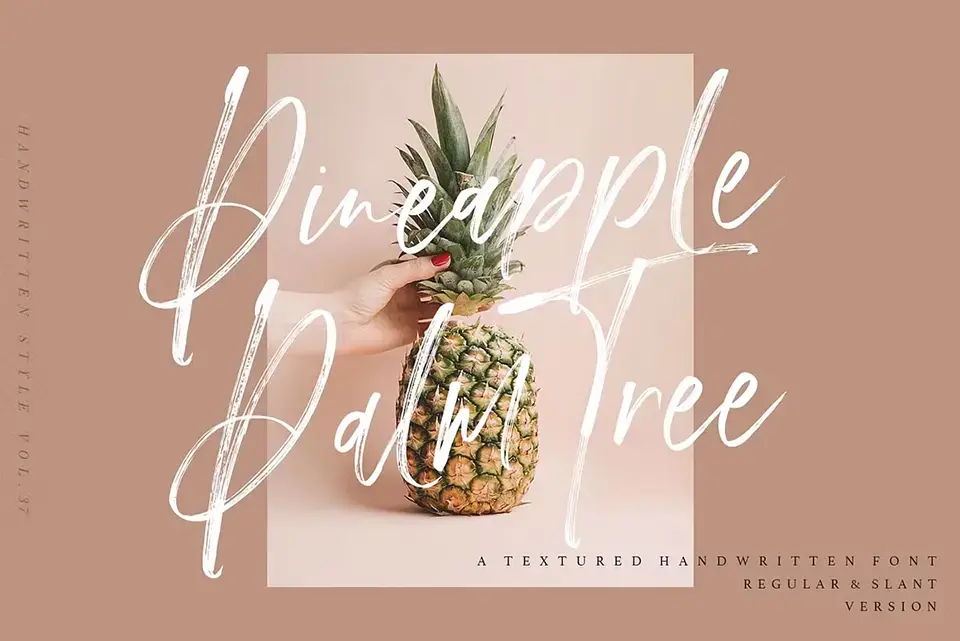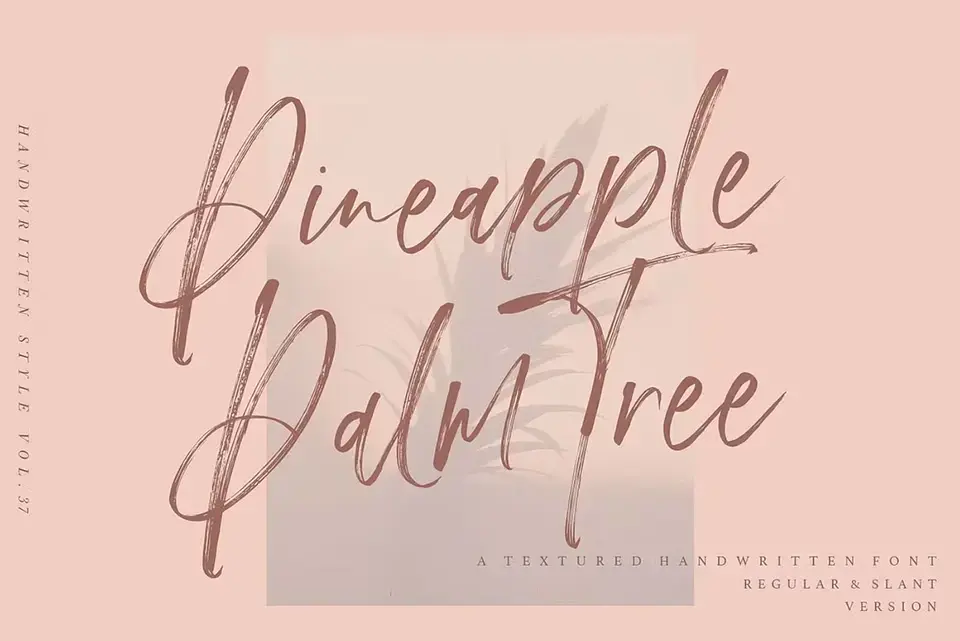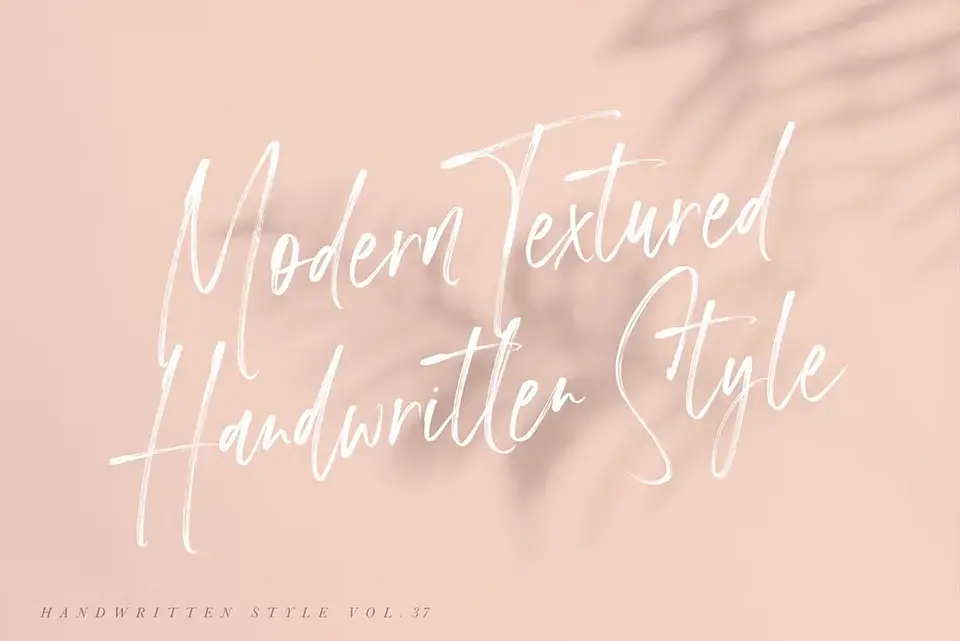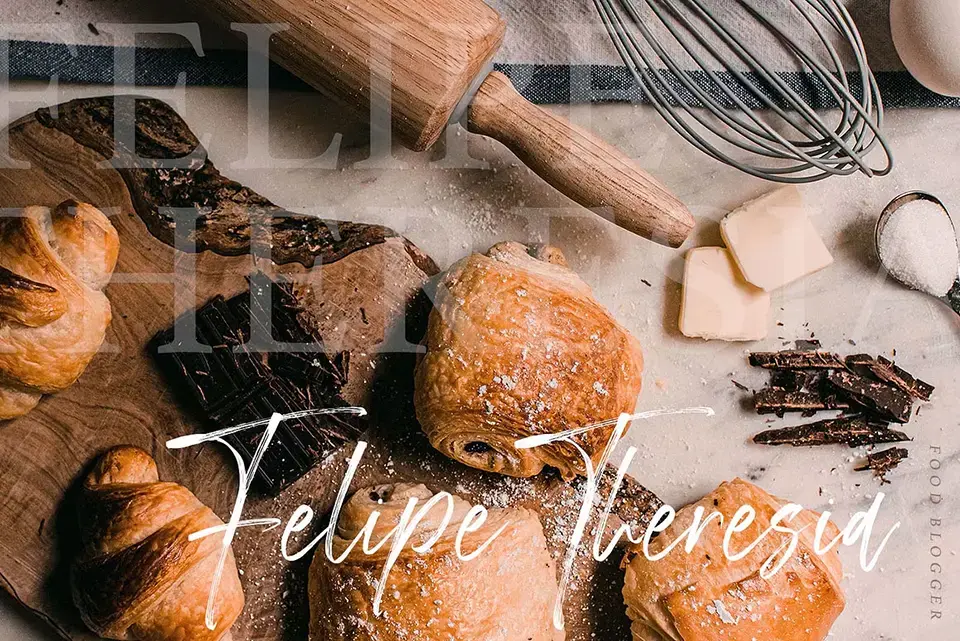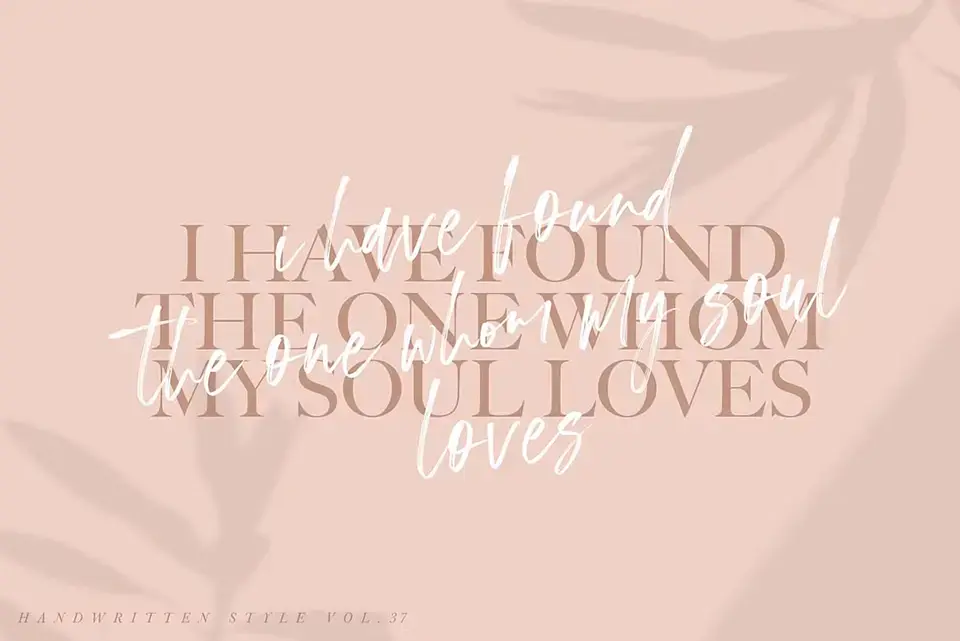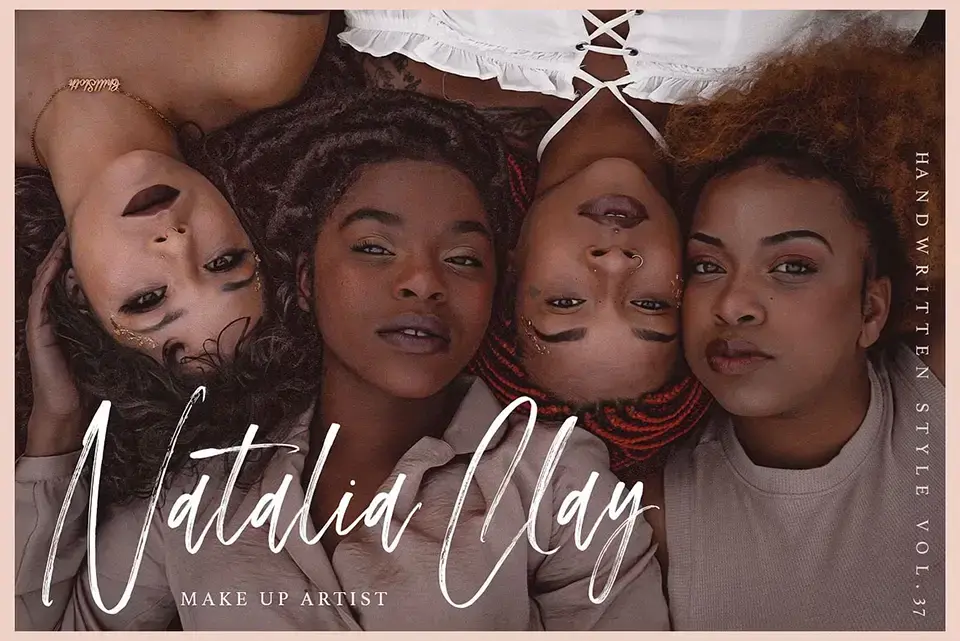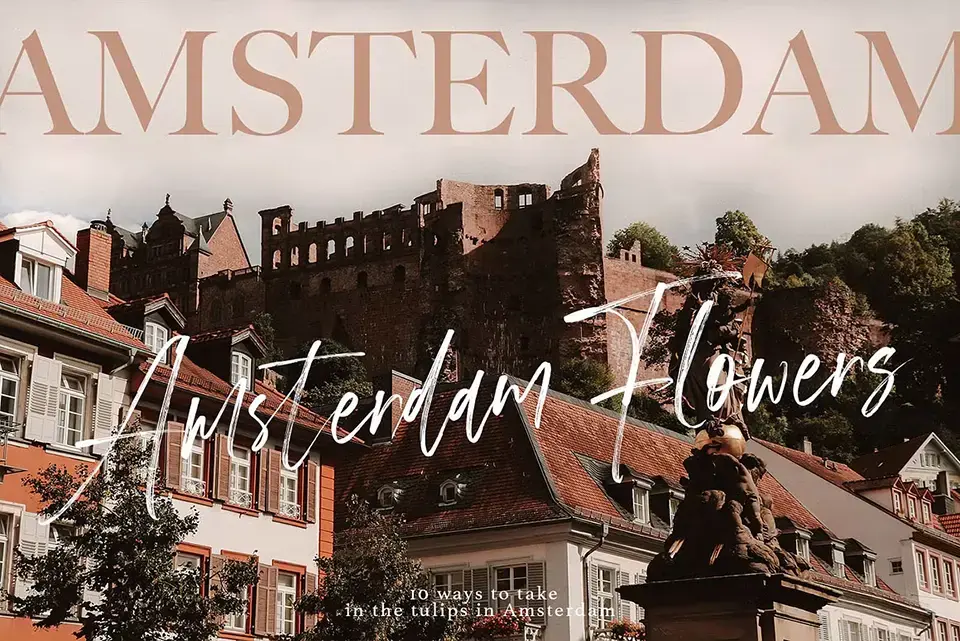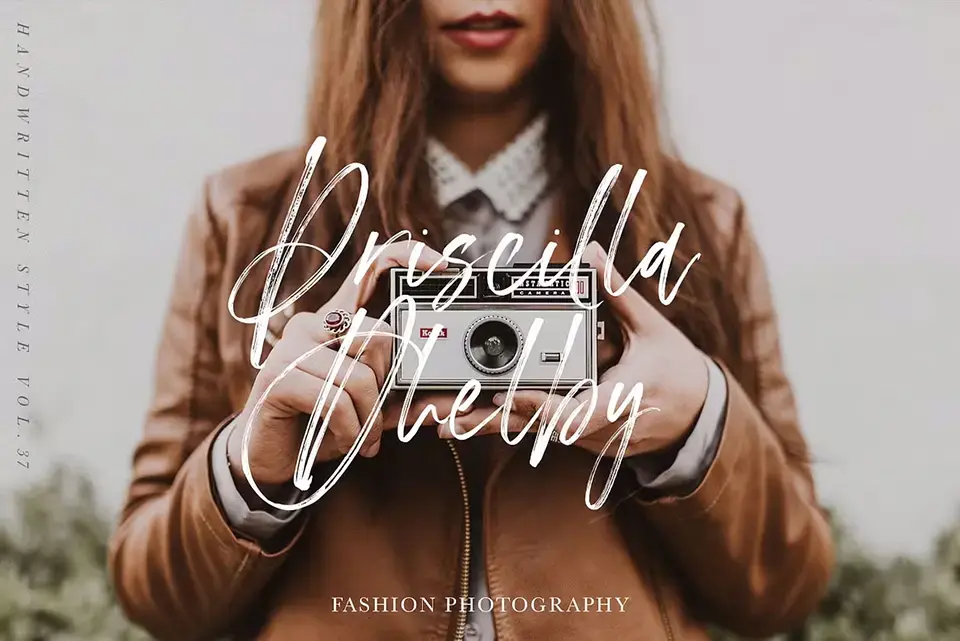
Pineapple Palm Tree Font
Pineapple Palm Tree is a dynamic handwritten brush font defined by its authentic, rough-edged textured characters. Crafted manually with a brush on textured paper, it delivers a striking and consistent stroke weight that immediately commands attention. This typeface naturally exudes a creative and bold impression, making it a fantastic choice for expressive brand identities, lively social media campaigns, and rustic event invitations. It performs exceptionally well when you need a handcrafted, organic aesthetic with prominent swashes. However, due to its textured and irregular baseline, it struggles in small body text or minimalist corporate interfaces where high legibility is strictly required. Pair this script with a clean serif to achieve a beautifully balanced composition.
– Eye-catching social media graphics
– Expressive brand identities and logos
– Rustic wedding and event invitations
– Striking promotional posters
– Lengthy body text paragraphs
– Highly formal corporate documents
– Small-scale user interface elements
Perfect for branding, invitation, and logo, with a artistic and brush style.